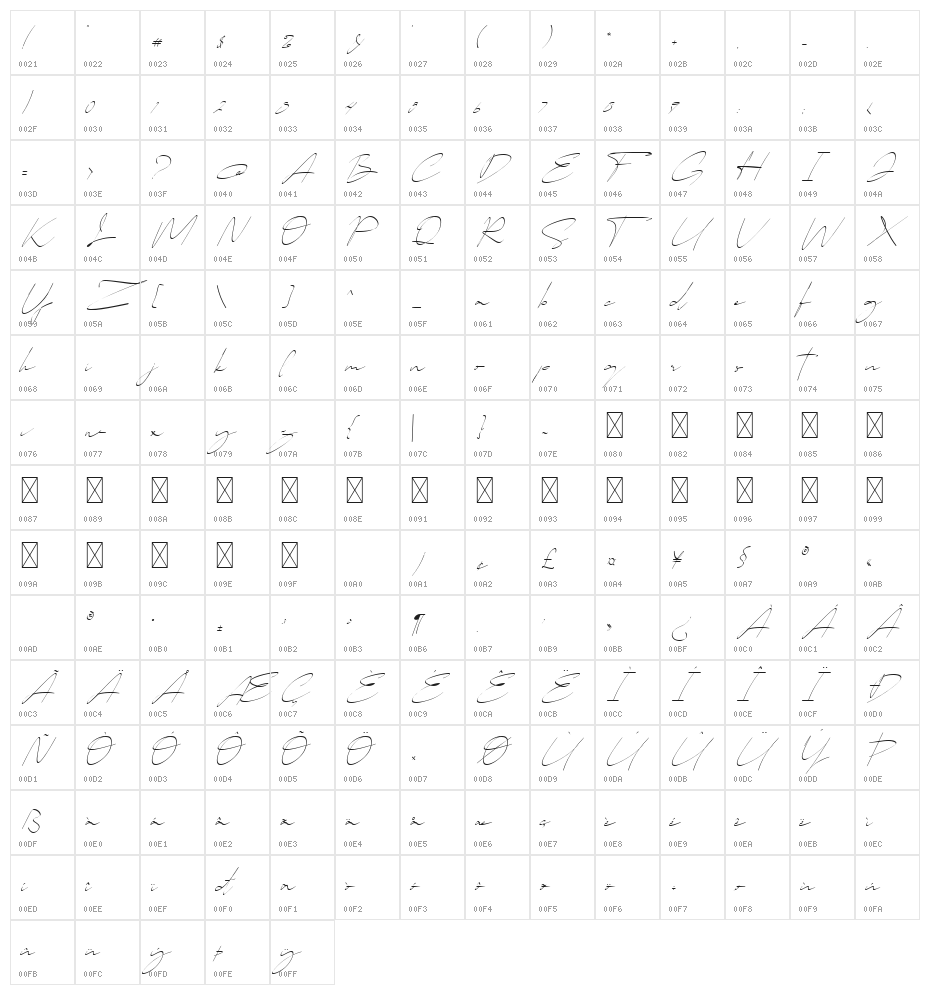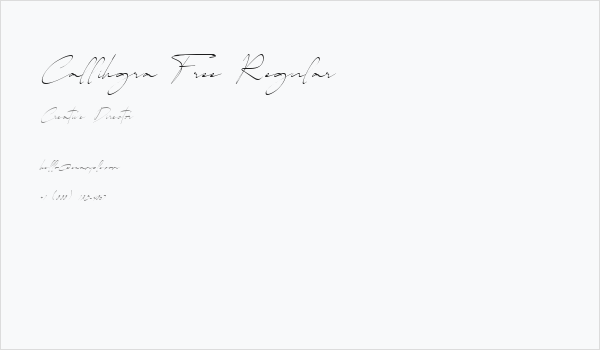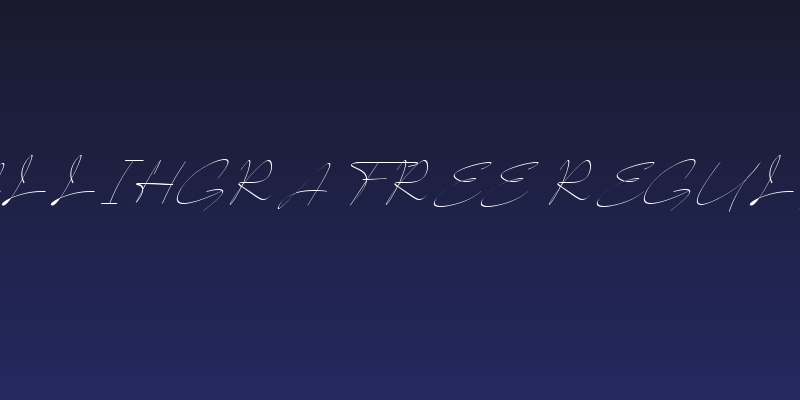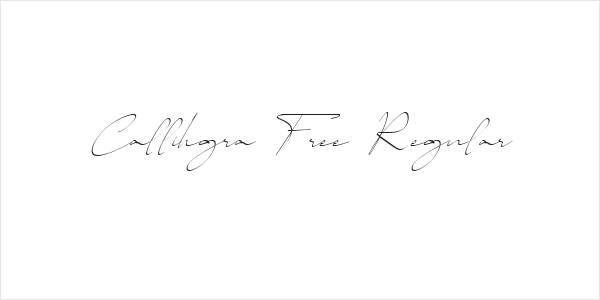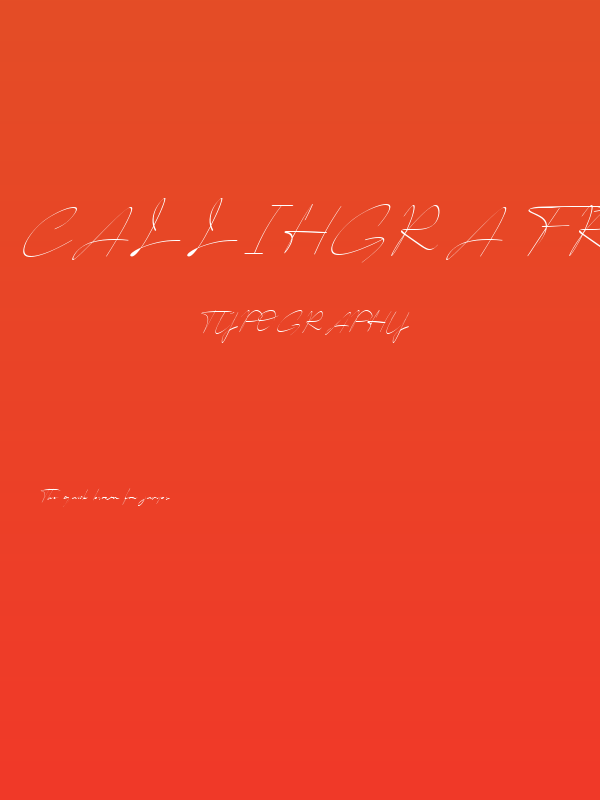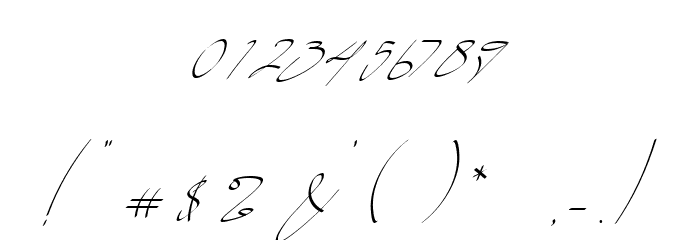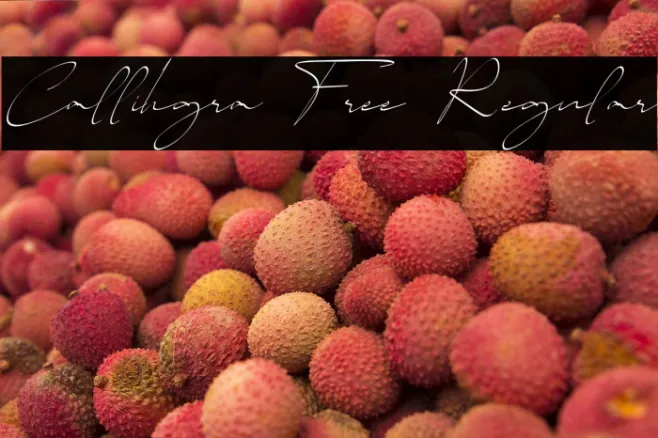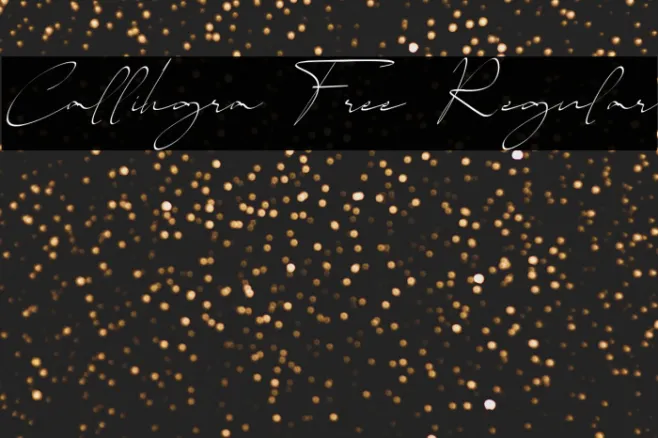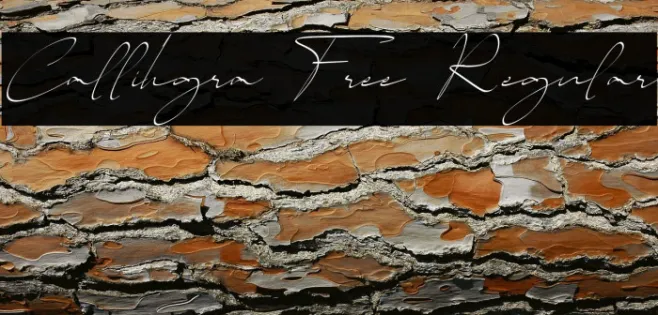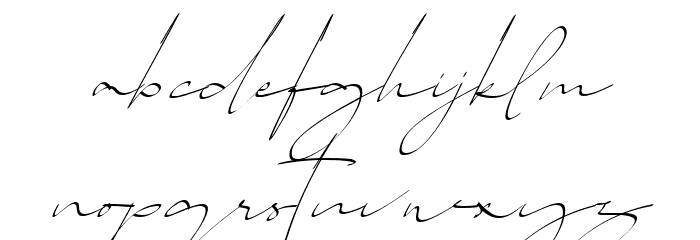
Callihgra Free Regular Font
Callihgra Free Regular Description
This font exudes elegance and sophistication with its fluid, cursive style. Each letter is crafted with a delicate touch, featuring thin, graceful strokes that mimic the flow of a calligrapher's pen. The uppercase letters are slightly more structured, providing a beautiful contrast to the more freeform lowercase letters. The numerals and special characters maintain the same elegant style, ensuring consistency throughout. This font is perfect for projects that require a personal, handwritten touch, such as invitations, greeting cards, or branding materials that aim to convey a sense of luxury and refinement.
| Overall Style | Elegant, Calligraphic |
| Use Case | Headlines, Invitations, Branding |
| Proposed Projects | Ideal for wedding invitations, personal branding, elegant stationery, and luxury product packaging. |